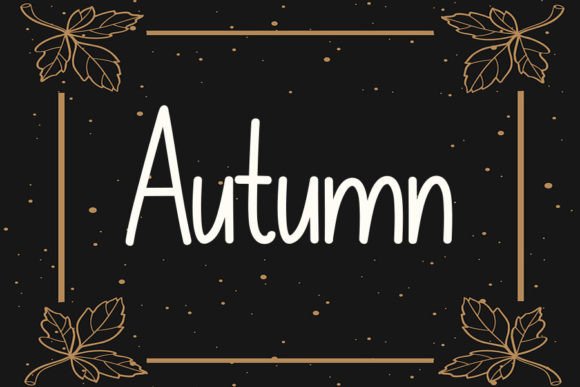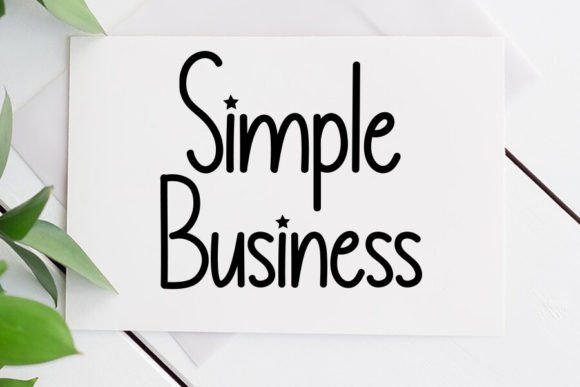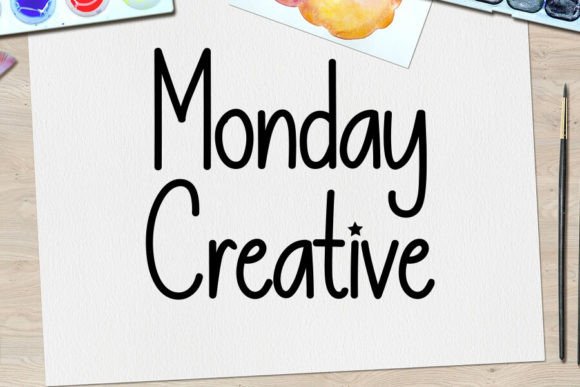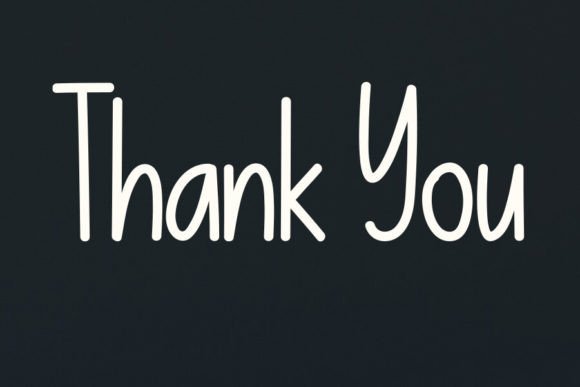
Candy Christmas Font: A Sweet Addition to Your Design Projects
Are you looking for a font that can add a touch of simplicity and natural charm to your design projects? Look no further than the Candy Christmas font! This beautiful, handwritten font is perfect for a wide range of applications, from greeting cards to headlines, and is sure to become a staple in your design toolkit.
What is Candy Christmas Font?
Candy Christmas is a simple, yet elegant handwritten font that is perfect for designers and crafters looking to add a personal touch to their projects. With its smooth, flowing lines and natural feel, this font is guaranteed to add a touch of warmth and personality to any design.
Key Features of Candy Christmas Font
- Handwritten style: Candy Christmas font has a beautiful, handwritten style that gives it a personal and natural feel.
- Versatile: This font is perfect for a wide range of applications, from greeting cards to headlines, and can be used in a variety of design projects.
- Simple and elegant: The simple, yet elegant design of Candy Christmas font makes it perfect for designers and crafters looking for a font that is easy to read and understand.
Uses of Candy Christmas Font
Candy Christmas font is a versatile font that can be used in a wide range of design projects, including:
- Greeting cards: Add a personal touch to your greeting cards with the Candy Christmas font.
- Headlines: Use Candy Christmas font to create eye-catching headlines for your blog posts, articles, and other written content.
- Signs and posters: This font is perfect for creating signs and posters for special events, such as Christmas markets, holiday parties, and more.
- Digital crafts: Use Candy Christmas font to create digital crafts, such as printable art, planners, and journals.
Benefits of Using Candy Christmas Font
There are many benefits to using Candy Christmas font in your design projects, including:
- Unique and personalized: The handwritten style of Candy Christmas font gives your designs a unique and personalized touch.
- Easily readable: The simple and elegant design of this font makes it easy to read and understand.
- Versatile: Candy Christmas font can be used in a wide range of design projects, from greeting cards to headlines.
- Time-saving: With Candy Christmas font, you can create beautiful designs in a fraction of the time it would take to create them from scratch.
Tips for Using Candy Christmas Font
Here are a few tips for using Candy Christmas font in your design projects:
- Pair with other fonts: Candy Christmas font pairs well with other fonts, such as sans-serif fonts, to create a unique and visually appealing design.
- Use in combination with images: Use Candy Christmas font in combination with images to create a beautiful and eye-catching design.
- Experiment with colors: Experiment with different colors to find the perfect combination that works with your design.
In conclusion, Candy Christmas font is a beautiful and versatile font that is perfect for designers and crafters looking to add a touch of simplicity and natural charm to their design projects. With its smooth, flowing lines and natural feel, this font is guaranteed to add a touch of warmth and personality to any design. Whether you’re creating greeting cards, headlines, or digital crafts, Candy Christmas font is a great choice.